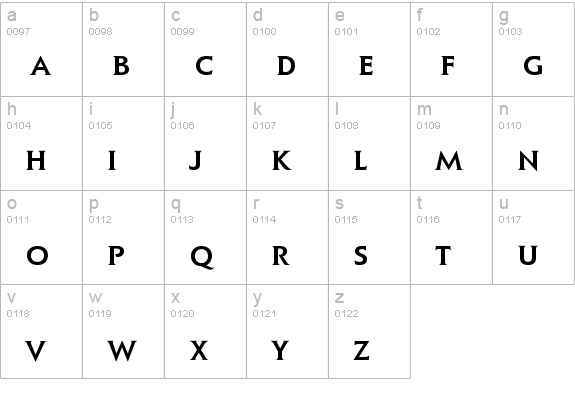
ElanEF-BookSC font is a modern and elegant typeface that exudes sophistication and readability. With its sleek lines and balanced proportions, this font is perfect for a wide range of design projects, from branding to editorial layouts. The clean and minimalistic design of ElanEF-BookSC makes it versatile and suitable for both digital and print applications. One of the best things about ElanEF-BookSC font is that it is available for free download at FontsMarket.com. This means that you can easily access this high-quality font without any cost, making it an excellent choice for designers and creatives looking to enhance their projects without breaking the bank. Whether you're working on a website, a brochure, or any other design project, ElanEF-BookSC font is sure to add a touch of elegance and professionalism to your work. Download it today and elevate your designs with this stunning typeface.